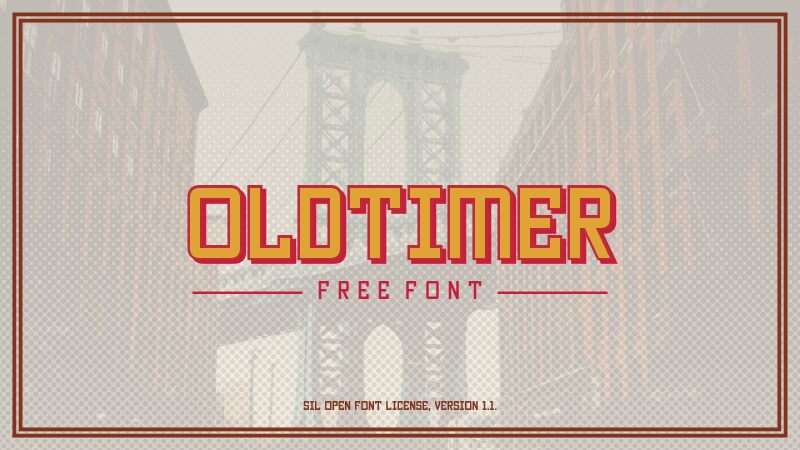
Oldtimer, the retro-inspired display font by GGBotNet, brings a touch of vintage charm to any project. With its semi-light weight and condensed width, this font exudes a classic feel that is perfect for branding, packaging design, and advertising materials. Oldtimer's unique flair makes it ideal for bold headlines or eye-catching titles in posters, flyers, and social media graphics. Its timeless style also works well for invitations and greeting cards. Give your designs a nostalgic twist with Oldtimer – the font that brings the past to life!